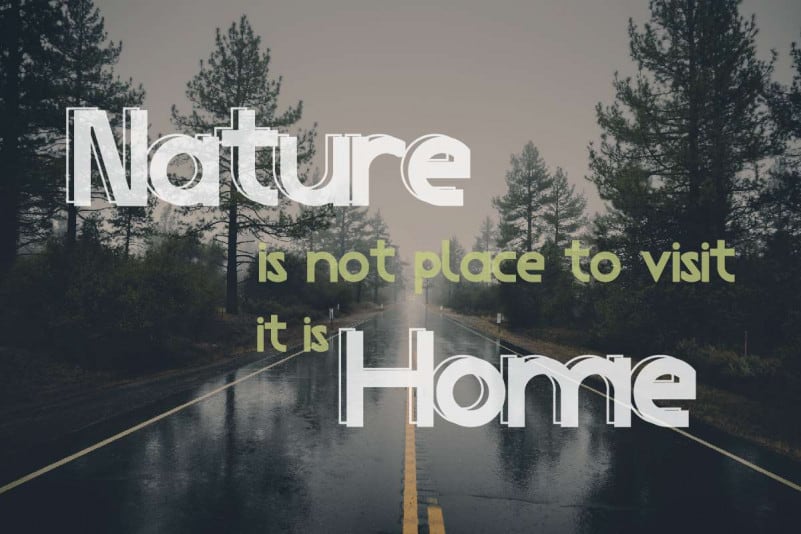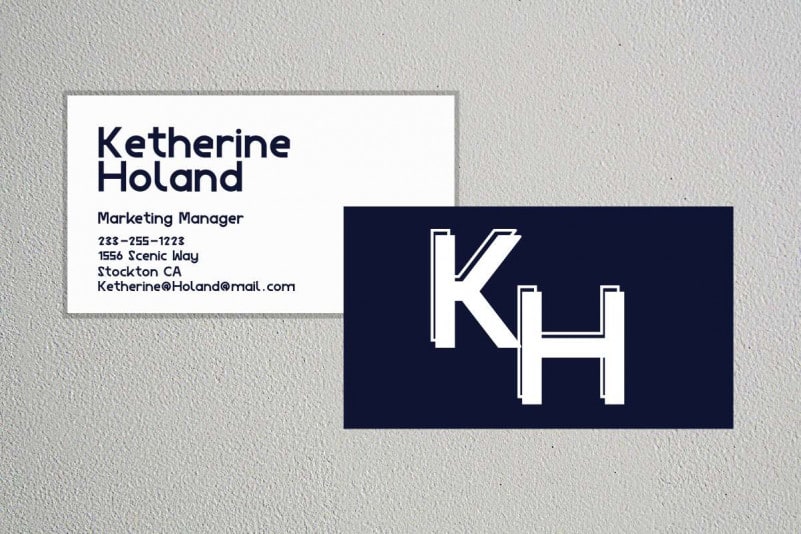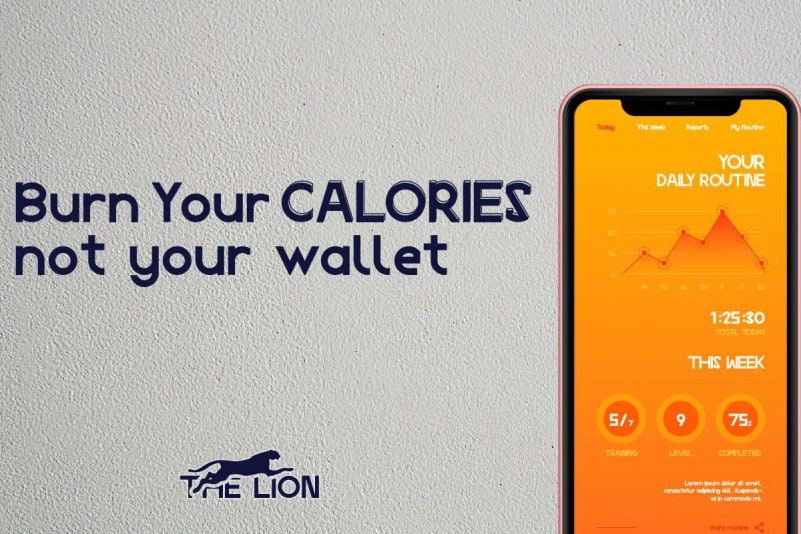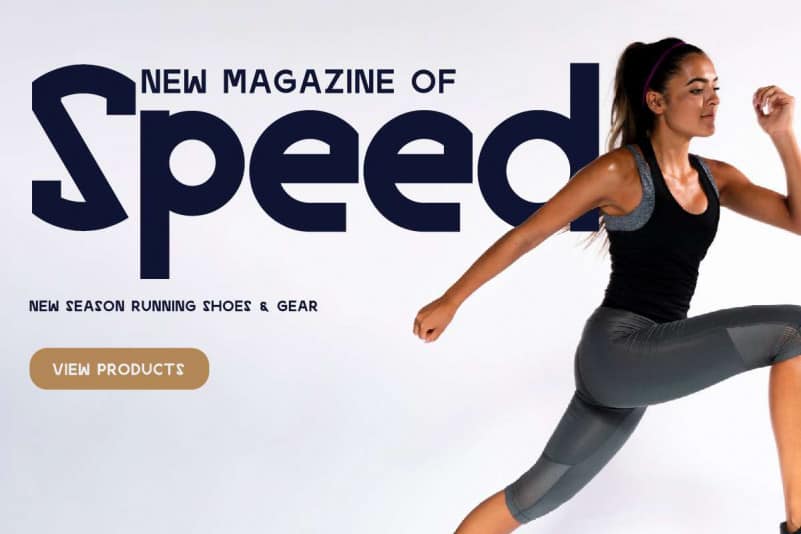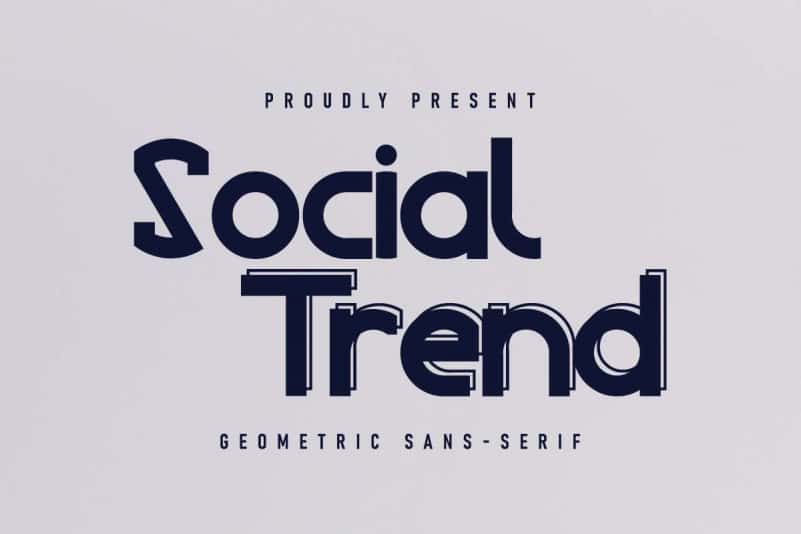
Social Trend Sans Serif Font
Social Trend Sans Serif Font is an exclusive sans serif typeface with casual style. The style of this font are elegant, modern, stylish, minimal and simple style.
Social Trend Sans Serif Font will be great for any projects including : branding, logo, stationery, business card, signage, flyer, brochure etc.